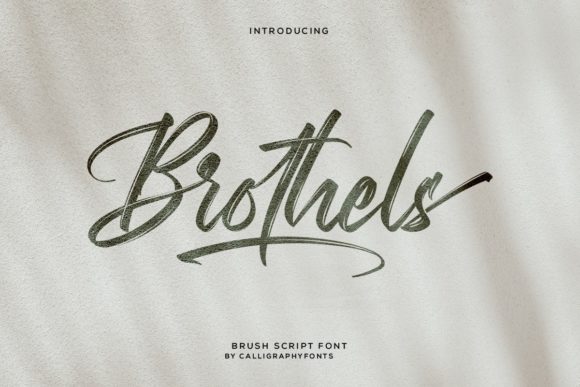
The Brothels Font: A Stylish and Elegant Script Font for Your Creative Projects
Have you ever been in the middle of a design project, and suddenly, you’re stuck on finding the perfect font? I recall a recent experience where I was working on a wedding invitation design, and my client requested a font that was both elegant and unique. After hours of searching, I stumbled upon the Brothels font, and it instantly captured my heart. In this article, I’ll share my journey with this beautiful script font, its features, and how to make the most of it in your creative projects.
An Honest Review of Brothels Font
What I Love About Brothels Font
- ✨ Ravishing style: Brothels font boasts a stylish and graceful appearance, perfect for creating stunning wedding invitations, stationery art, and social media posts.
- 🎉 Versatile: Brothels font is suitable for a wide range of creative projects, from digital designs to print materials.
While Brothels font is an excellent choice for many projects, there are a few minor considerations to keep in mind:
- 🤔 Legibility at small sizes: As with many script fonts, Brothels may not be the best choice for body text or small font sizes, as it can become difficult to read.
The Backstory of Brothels Font
Brothels font was designed with the intention of creating a beautiful, elegant script font that would capture the essence of luxury and sophistication. The designer aimed to create a font that would be perfect for wedding invitations, stationery art, and other formal designs. With its ravishing style and PUA encoding, Brothels font has become a popular choice among designers and crafters.
Q: Is Brothels font suitable for body text or small font sizes?
A: While Brothels font is beautiful, it’s not ideal for body text or small font sizes. It’s best used for headings, titles, or large text elements.